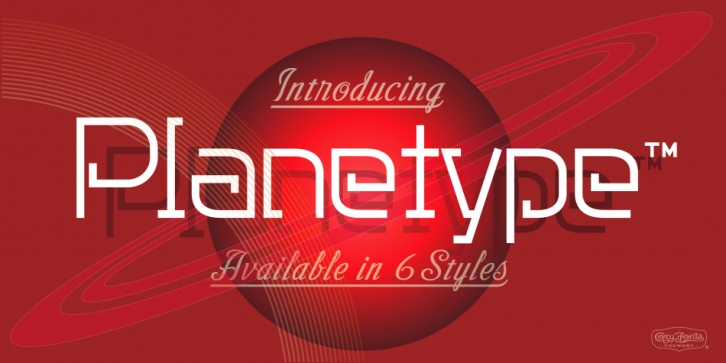
The Planetype Font Family is Modern. It has 6 Font Styles:
X-Light, Light, Medium, Inline, Bold, & X-Bold.
Each style has a consistent weight with a square serif of equal weight to its vertical and horizontal strokes.
Planetypeâ„¢ for short or Planet-Type font styles all have extremely clean edges and are sharply defined.
There is a standard kerning applied, however evenly letterspacing these family members give a distinct personality and continues to command the negative space just as in tight kerned examples.
The compatible relationship of these font family members, weight to weight, and X-Light to X-Bold is seamless and the overall design coloring of words and sentences is well balanced and extremely legible.
The Planetype Family fonts are matching members glyph to glyph. This family works in modern, contemporary, and vintage settings.
The Planetype Medium matches the outer weight of Planetype Inline. There are several unique Glyphs that set the character of this family, such as:
Caps B, M, Q, R, X, and Lower Case a, e, k, r, z to begin with. The numerals and dingbats also have several unique glyphs that flow with the family
style in every matching weight.
These characteristics lend well in designing logos, brands, and even monograms. Starting with Planetype X-Light the designer has a command of the clean lines yet expressing Modernism and a touch
of Architectural structure.
Planetype Medium & Planetype Inline is a dynamic duo giving a positive/negative readability.
Planetypeâ„¢ Font Family from CozyFonts Foundry for 2020.